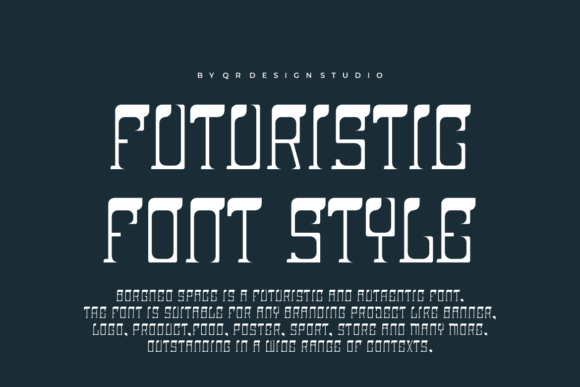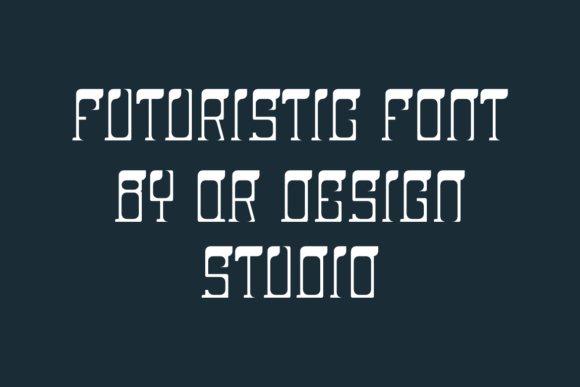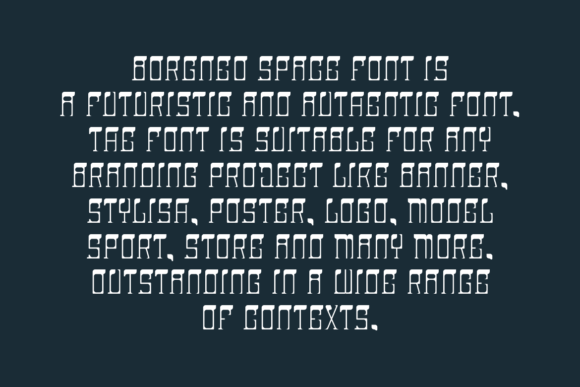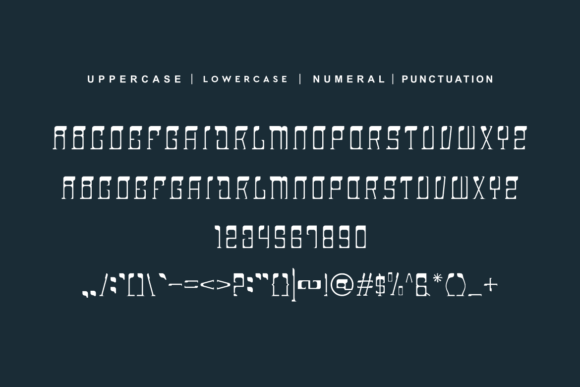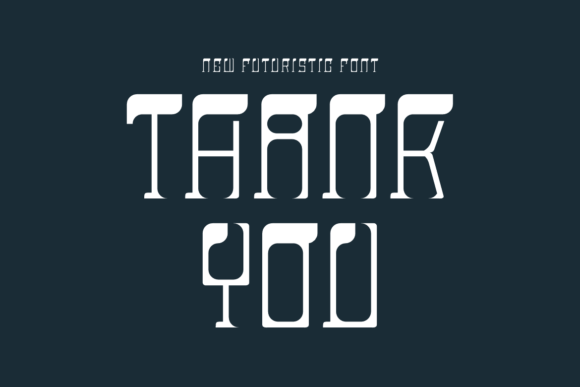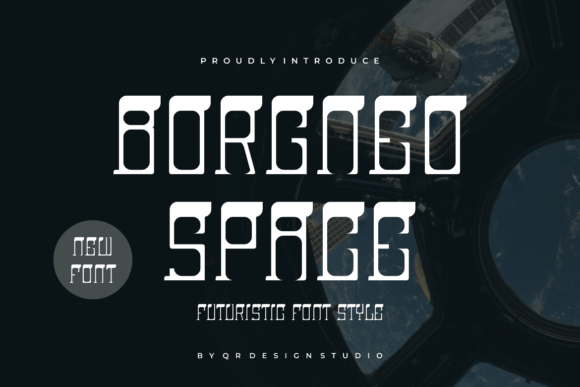
Borgneo Space Font: Elevate Your Designs to Futuristic Heights
In the realm of typography, fonts play a pivotal role in shaping the visual identity of a brand or project. Among the myriad of fonts available, the Borgneo Space Font stands out as a futuristic and authentic typeface that can elevate your designs to new heights. This font is not just a simple collection of characters; it’s a tool that can transform your branding projects, making them more captivating and professional.
What is Borgneo Space Font?
Borgneo Space Font is a meticulously crafted typeface that embodies the essence of futurism and authenticity. Its unique design elements make it an ideal choice for a wide range of applications, from posters and logos to sports branding and beyond. The font’s versatility is one of its most compelling features, allowing it to seamlessly integrate into various contexts and themes.
Key Features of Borgneo Space Font
- Futuristic Design: The Borgneo Space Font boasts a futuristic aesthetic that can add a cutting-edge feel to any project. Its sleek lines and modern curves make it perfect for projects that require a forward-thinking approach.
- Authenticity: Despite its futuristic look, the font maintains an air of authenticity, ensuring that your designs are not only modern but also genuine and relatable.
- Versatility: The font’s adaptability is one of its strongest suits. Whether you’re working on a poster, logo, sports brand, or any other project, the Borgneo Space Font can be tailored to fit your needs.
Applications of Borgneo Space Font
The applications of the Borgneo Space Font are vast and varied. Here are a few examples of how this versatile font can be used:
- Branding: Create a lasting impression with a unique and memorable logo that stands out in the market.
- Posters: Add a futuristic touch to your posters, making them more eye-catching and engaging.
- Sports Branding: The font’s modern and dynamic feel makes it an excellent choice for sports-related branding projects.
- Web Design: Enhance your website’s typography with a font that is both modern and highly legible.
Why Choose Borgneo Space Font?
In a world where first impressions matter, choosing the right font for your project is crucial. Here are a few reasons why the Borgneo Space Font should be at the top of your list:
- Unique Aesthetic: The font’s unique blend of futurism and authenticity sets it apart from more generic typefaces.
- High Versatility: Its adaptability ensures that it can be used across a wide range of projects and industries.
The Borgneo Space Font is a powerful tool for designers and crafters looking to infuse their projects with a futuristic and authentic touch. Its versatility, unique aesthetic, and ease of use make it an excellent choice for a wide range of applications. Whether you’re working on a branding project, poster, logo, or sports branding, this font has the potential to elevate your designs to new heights. With the Borgneo Space Font, you can create visually stunning and memorable projects that leave a lasting impression on your audience.